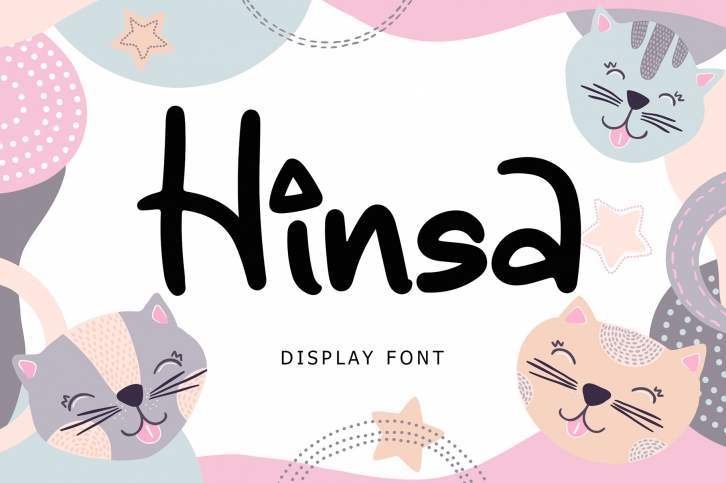
Hinsa Cute Display Font Download
Hinsa Cute Display is a beautiful font that was designed by Formatika Studio. It's a great choice for designers and creatives who need such a font. It was released on August 14, 2020 and the file size is 10.73 MB. Hinsa Cute Display may give a more youthful, expressive and casual look to your project. It is a very beautiful, refined, elegant, and high-quality font.